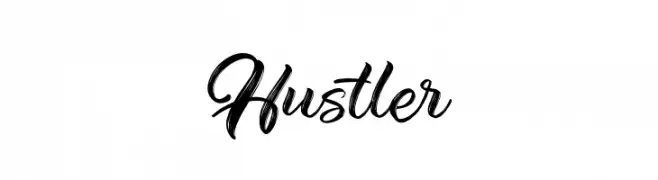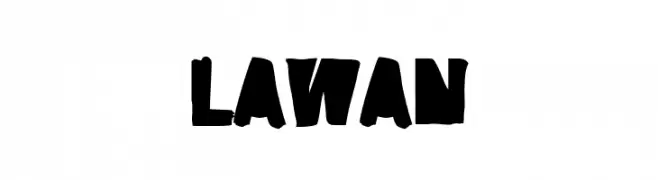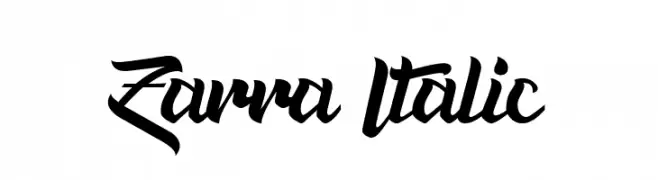
A playful and elegant script font with fluid, connected letterforms and medium contrast.
A bold, italic, and cursive font with dynamic strokes and artistic flair.
A bold, playful font with irregular, chunky characters and a whimsical style.
A playful and elegant handwritten font with fluid, cursive letterforms.
A dynamic, expressive script font with fluid, cursive strokes and a handcrafted feel.
A bold, brush-style script font with dynamic, textured strokes.
A lively and expressive handwritten font with fluid strokes.
A graceful and elegant script font with flowing, interconnected letters.
An elegant, flowing script font with ornate uppercase and smooth lowercase letters.
A dynamic, flowing script font with elegant, cursive letterforms.